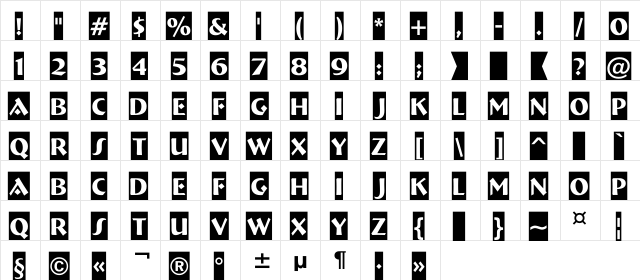
a_BremenSl Regular
Design Context for a_BremenSl Typeface
a_BremenSl is a composed and adaptable typeface that performs quietly and consistently across a wide range of design contexts.